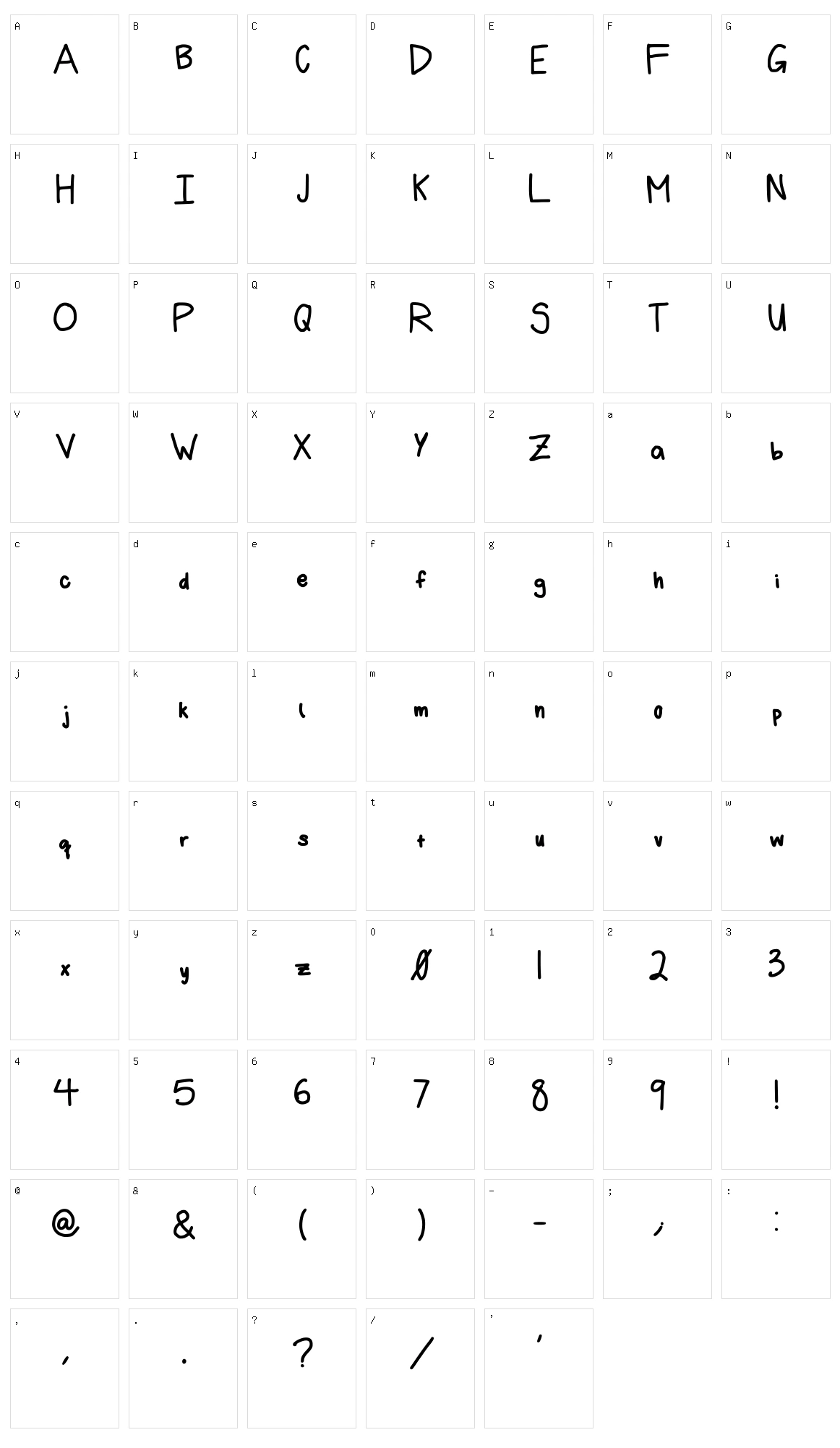
The free font Marisa Handwriting is carefully designed by Marisa Toe, showcasing a thoughtful balance of creativity and usability and falls under the Script font style. When you download the ZIP file, it contains only 9.98 KB of font files, making it lightweight and quick to download. Please review the license details below to understand permitted usage and distribution rights. If license information is not available, we recommend using this font for personal projects only or contacting the author directly for commercial usage permissions.